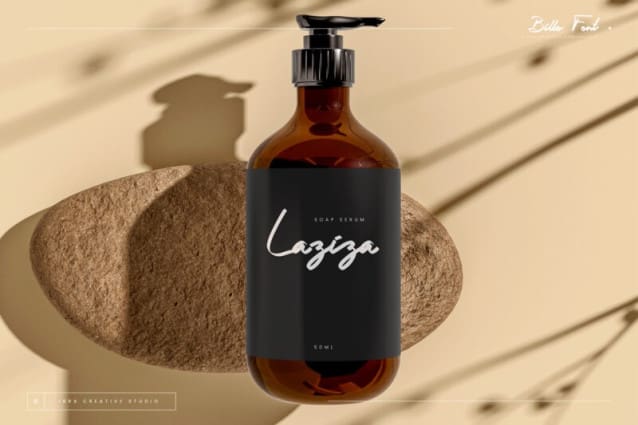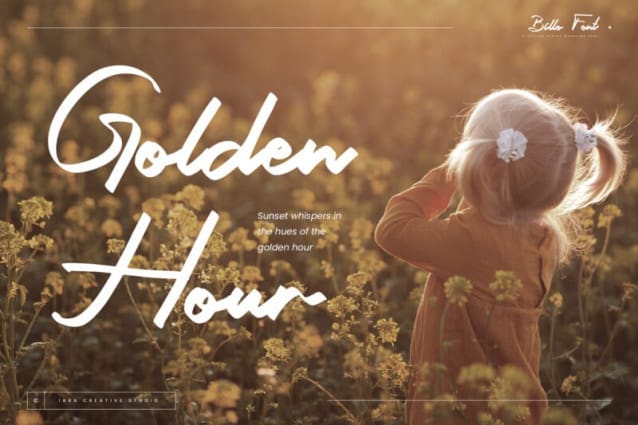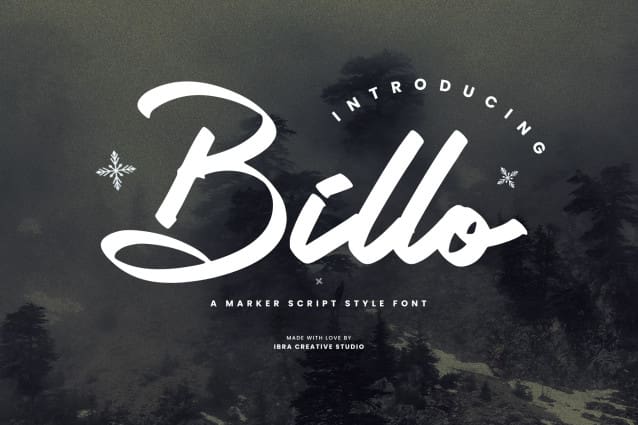
Billo Script Font
Billo Script Font, a marker script style font, radiates an unmistakable blend of casual flair and lively charm. With its handcrafted strokes reminiscent of a marker’s fluid motion, this font captures the essence of spontaneity and creativity. Billo’s characters dance across the page with a playful rhythm, infusing any design with a sense of warmth and approachability. The letters exhibit a casual elegance, making it ideal for projects seeking a friendly yet stylish touch. Whether used in branding, invitations, or expressive headlines, Billo effortlessly conveys a sense of authenticity and human touch, inviting the audience to engage with content that reflects the joy of free-spirited expression.
Billo Script Font is perfect for branding projects, logo, wedding designs, social media posts, advertisements, product packaging, product designs, label, photography, watermark, invitation, stationery, game, fashion and any projects.